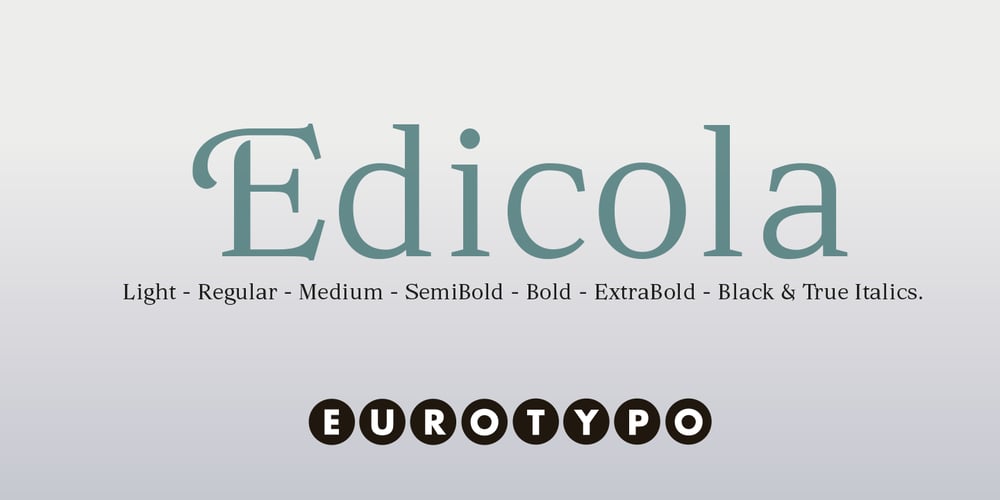
Edicola Font Family was designed by Olcar Alcaide and published by Eurotypo. Edicola contains 14 styles and family package options. The “edicola” refers to a newsstand, it is an Italian kiosk for selling magazines and newspapers on the street. It has been a part of the urban landscape in all developed societies and remains a daily access point to printed information. However, the decline of print media, the rise of digital platforms, and economic pressures are forcing this occupation to undergo transformation.The “Edicola” Font Family is composed of seven different stroke weights, each with its corresponding true italic version. It also includes a swash variant, old-style figures, and a set of ligatures.